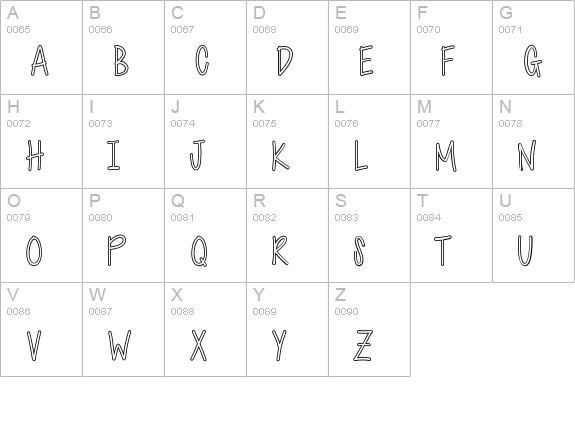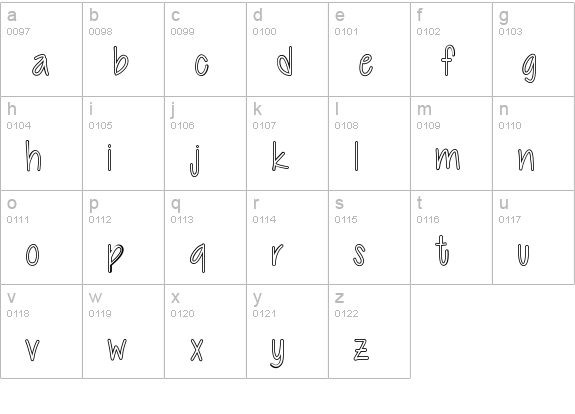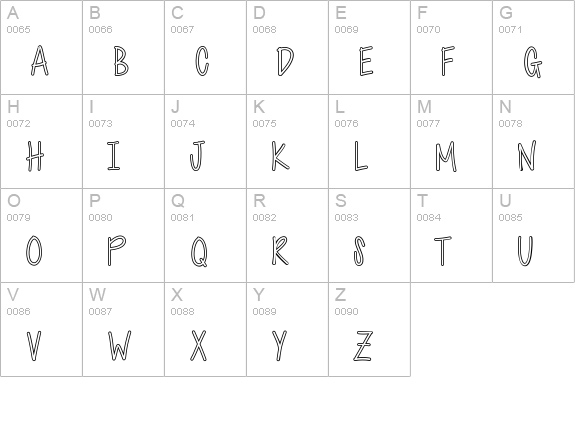
CutiePatootie Font Details
Introducing CutiePatootie font, a charming and whimsical typeface that is sure to bring a touch of playfulness to any design project. With its adorable and rounded letterforms, this font exudes a sense of joy and innocence, making it perfect for children's books, invitations, greeting cards, and more. But what sets CutiePatootie font apart is not just its delightful appearance, but also the fact that it is completely free. Yes, you heard that right! This font is freely available to download at FontsMarket.com, allowing you to add a dash of cuteness to your designs without breaking the bank. Whether you're a professional designer or simply someone with a passion for creating beautiful visuals, CutiePatootie font is a must-have in your collection. Its versatility allows it to be used in a wide range of projects, from branding and packaging to social media graphics and posters. The smooth and flowing curves of CutiePatootie font make it easily legible even at smaller sizes, ensuring that your message comes across clearly. Its friendly and approachable nature also makes it perfect for creating a warm and inviting atmosphere in your designs. So why wait? Head over to FontsMarket.com and download CutiePatootie font today. Embrace the sweetness and charm it brings to your projects, and let your creativity soar. Remember, it's not every day that you come across a font that is both adorable and free!